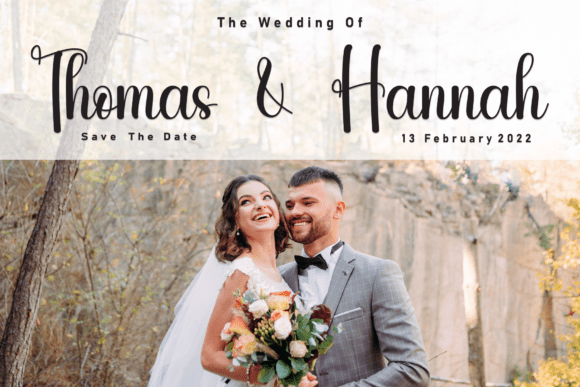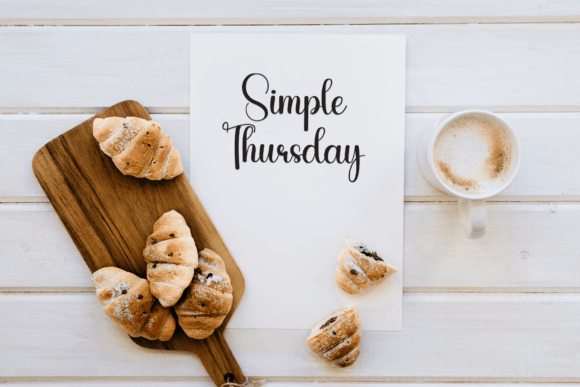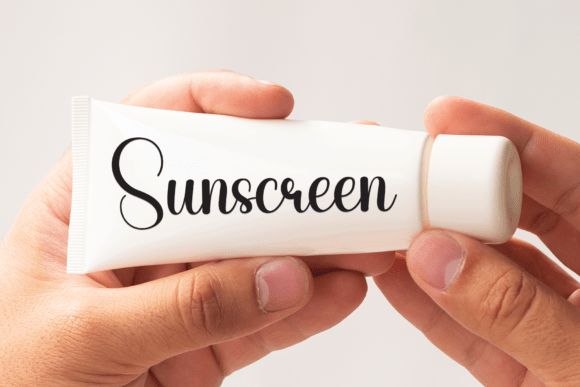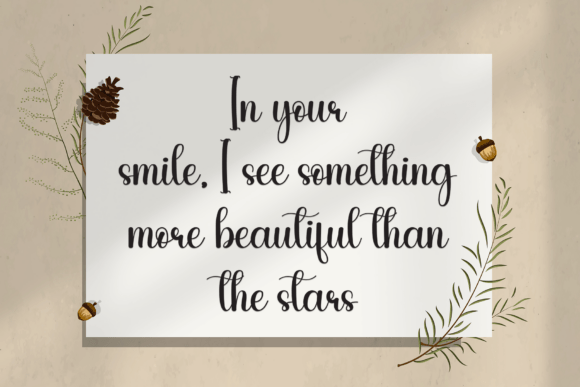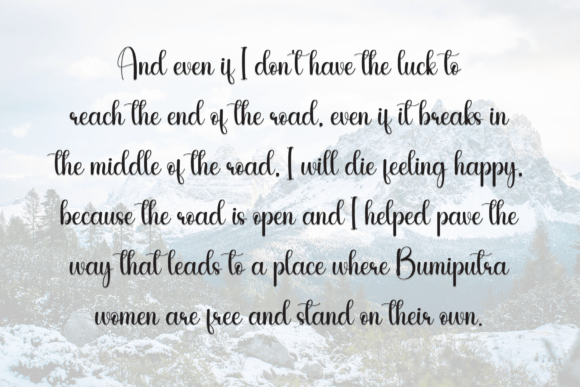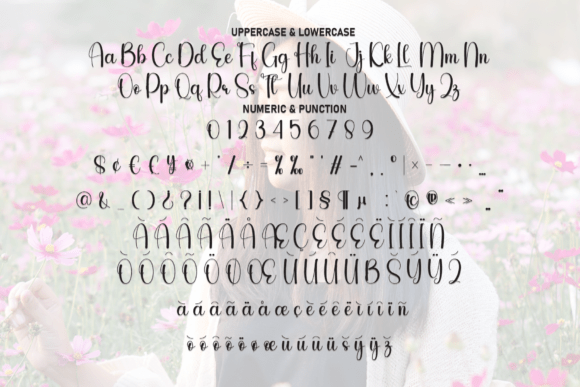
The Enchanting Beautiful Font: A Designer’s Dream Come True
I’ll never forget the time I was working on a wedding invitation project, and my client asked me to create something that would make their guests feel like they were part of a fairytale. I scoured the internet for the perfect font, but nothing seemed quite right. That was until I stumbled upon the Beautiful Font. This beguiling and welcoming handwritten script font has been a game-changer for my designs, and I’m excited to share its magic with you.
I’ve had the pleasure of working with the Beautiful Font for several projects, and here’s what I think:
- ✨ It’s incredibly versatile and can be used for a wide range of projects, from wedding invitations to social media graphics.
- ✅ The font has a unique, magical quality that adds a touch of whimsy to any design.
- 💫 It’s easy to read, even in smaller sizes, making it perfect for body text or captions.
- 🎨 The font comes with a range of OpenType features, including stylistic alternates and glyphs, which allow for endless creative possibilities.
While the Beautiful Font is a stunning addition to any design, there are a few quirks to keep in mind:
- 🤔 Some of the more intricate details can get lost when the font is used at very small sizes.
- ⚠️ The font may not be the best choice for very formal or traditional designs, as it has a distinctly whimsical feel.
The Story Behind the Beautiful Font
The Beautiful Font was designed by a team of creatives who wanted to create a font that would capture the magic and wonder of the handwritten script. Inspired by vintage letters and romantic calligraphy, the font’s designers aimed to create a typeface that would transport users to a world of beauty and enchantment.
| Is the Beautiful Font suitable for body text? | While the Beautiful Font is primarily designed for display use, it can be used for body text in certain contexts. However, it’s recommended to use a clear, legible font for longer blocks of text. |